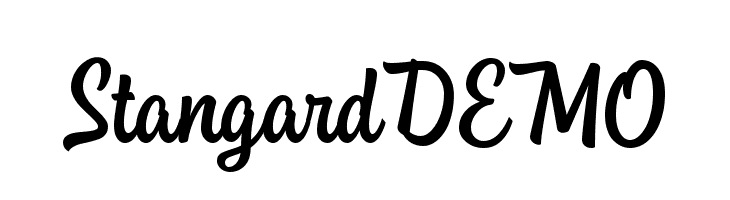
An ornate and decorative font with vintage gothic elements.
A playful, hand-drawn font with a brush-like texture and dynamic style.
A bold, playful script font with a handwritten style.
A decorative and elegant script font with flowing, cursive characters.
A modern, elegant script font with flowing, cursive characters.
A bold, geometric font with sharp angles and a modern industrial feel.
A bold, italicized font with a modern, angular design.
A bold, dripping effect font with a playful and creative style.
An elegant, flowing script font with a refined and sophisticated style.
A bold, cursive font with a playful and energetic style.